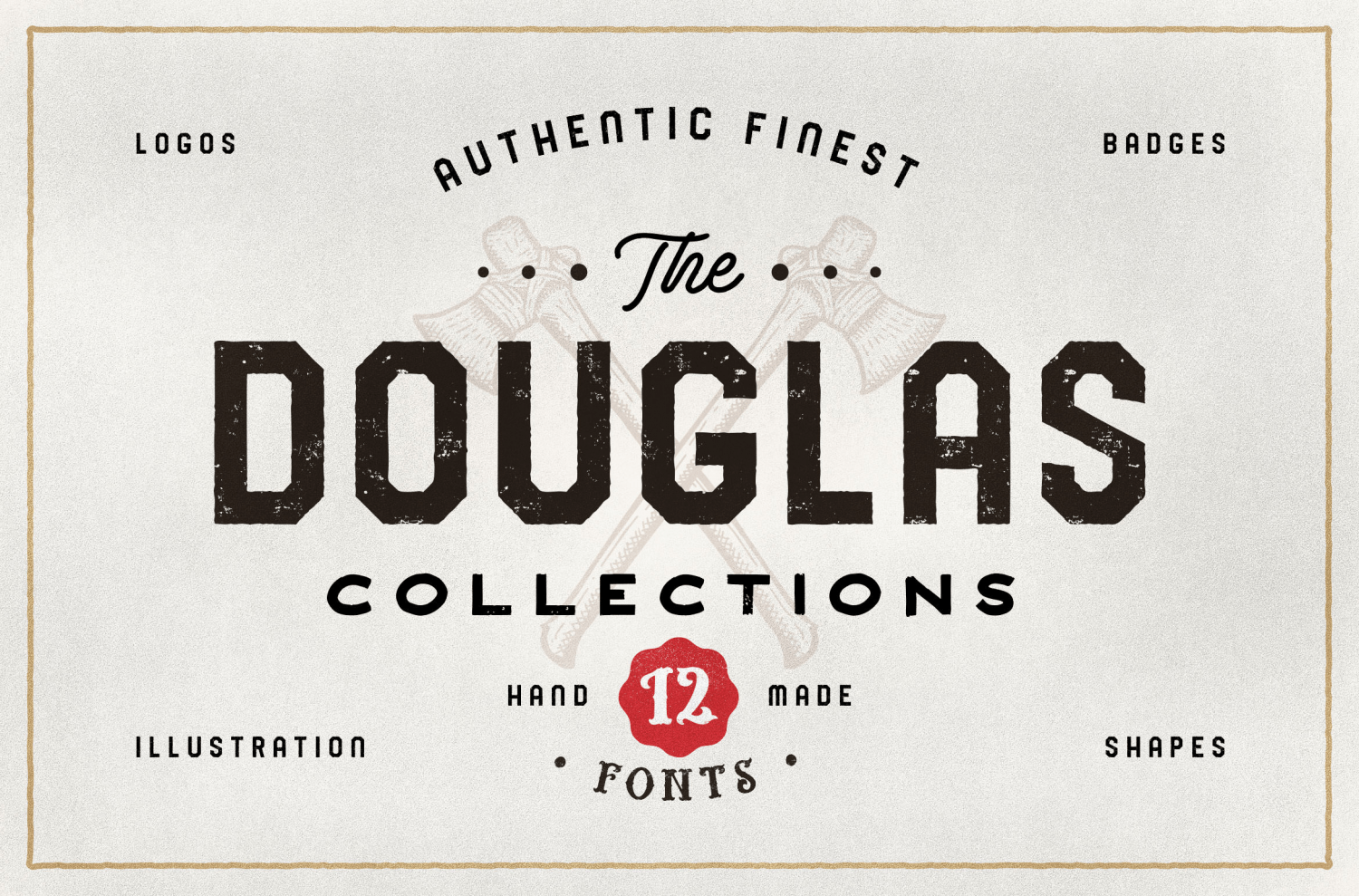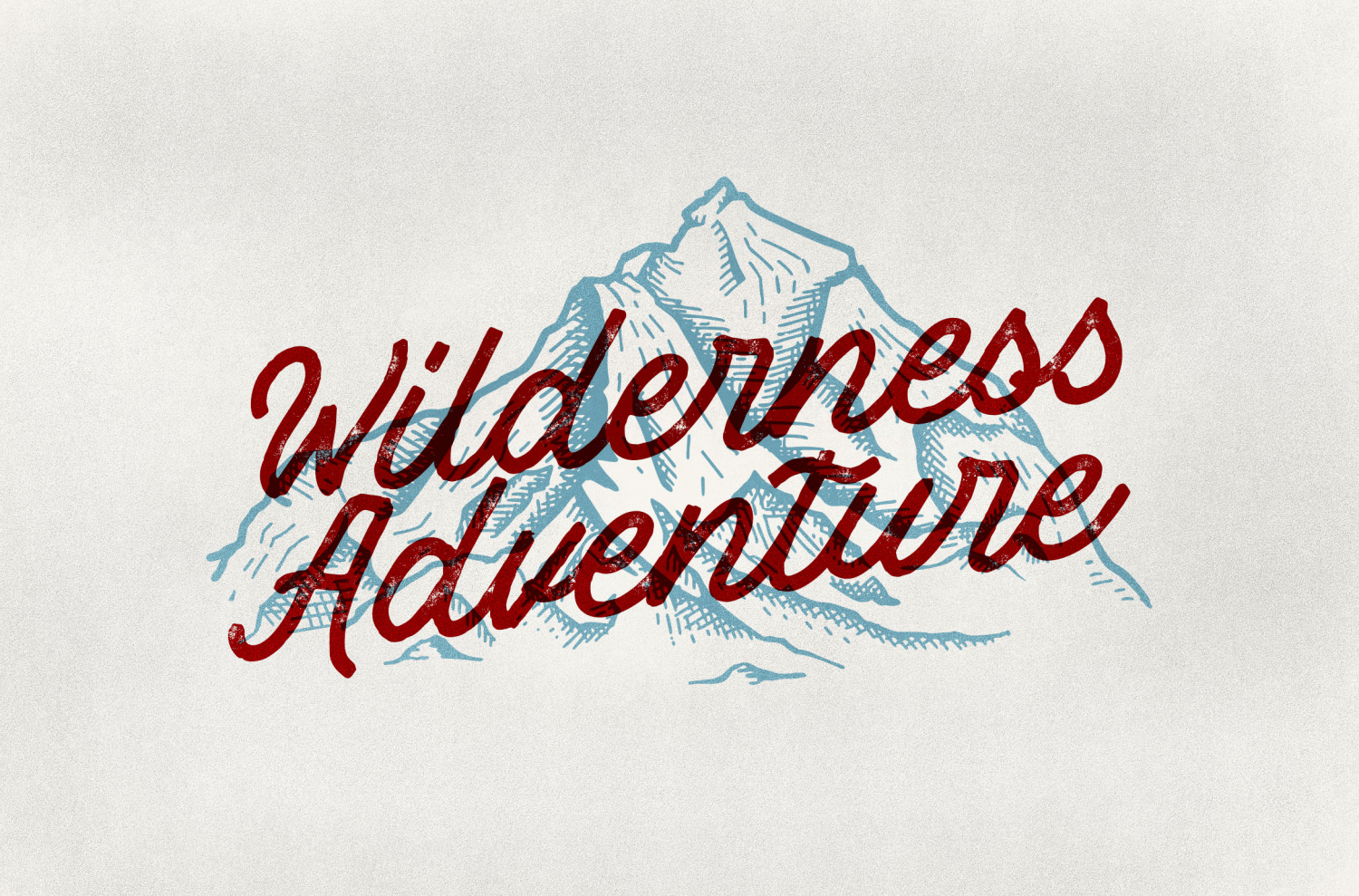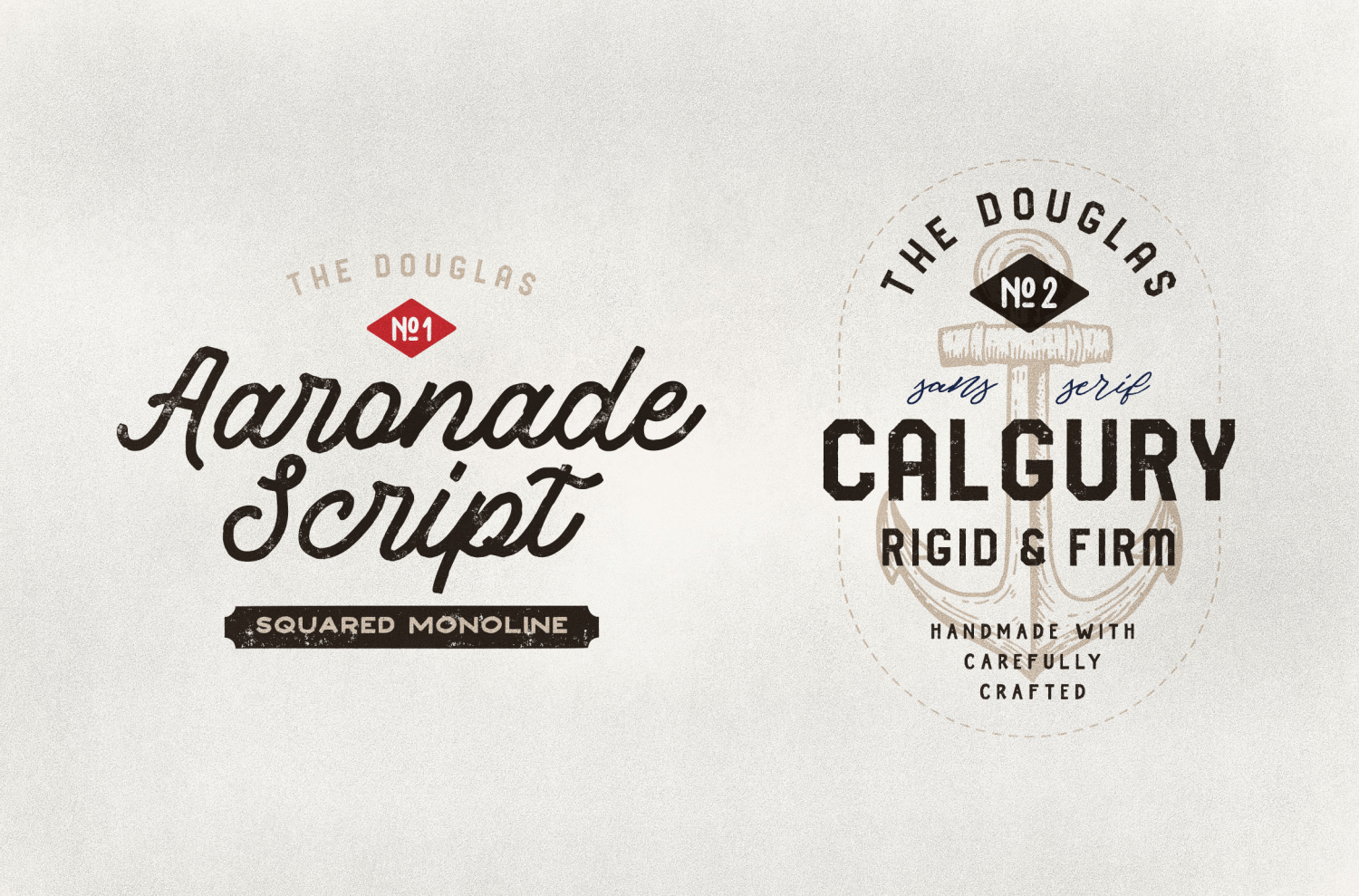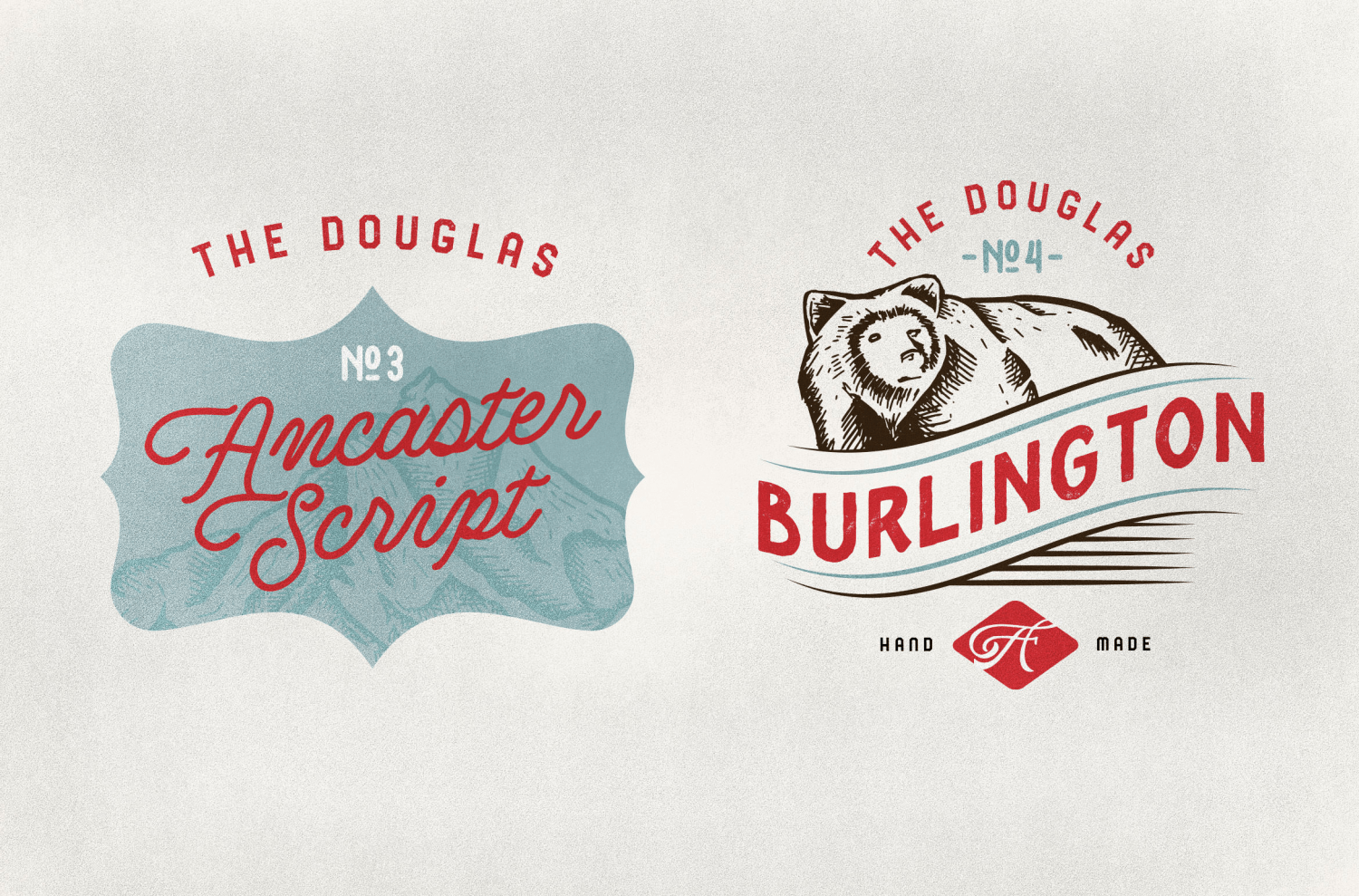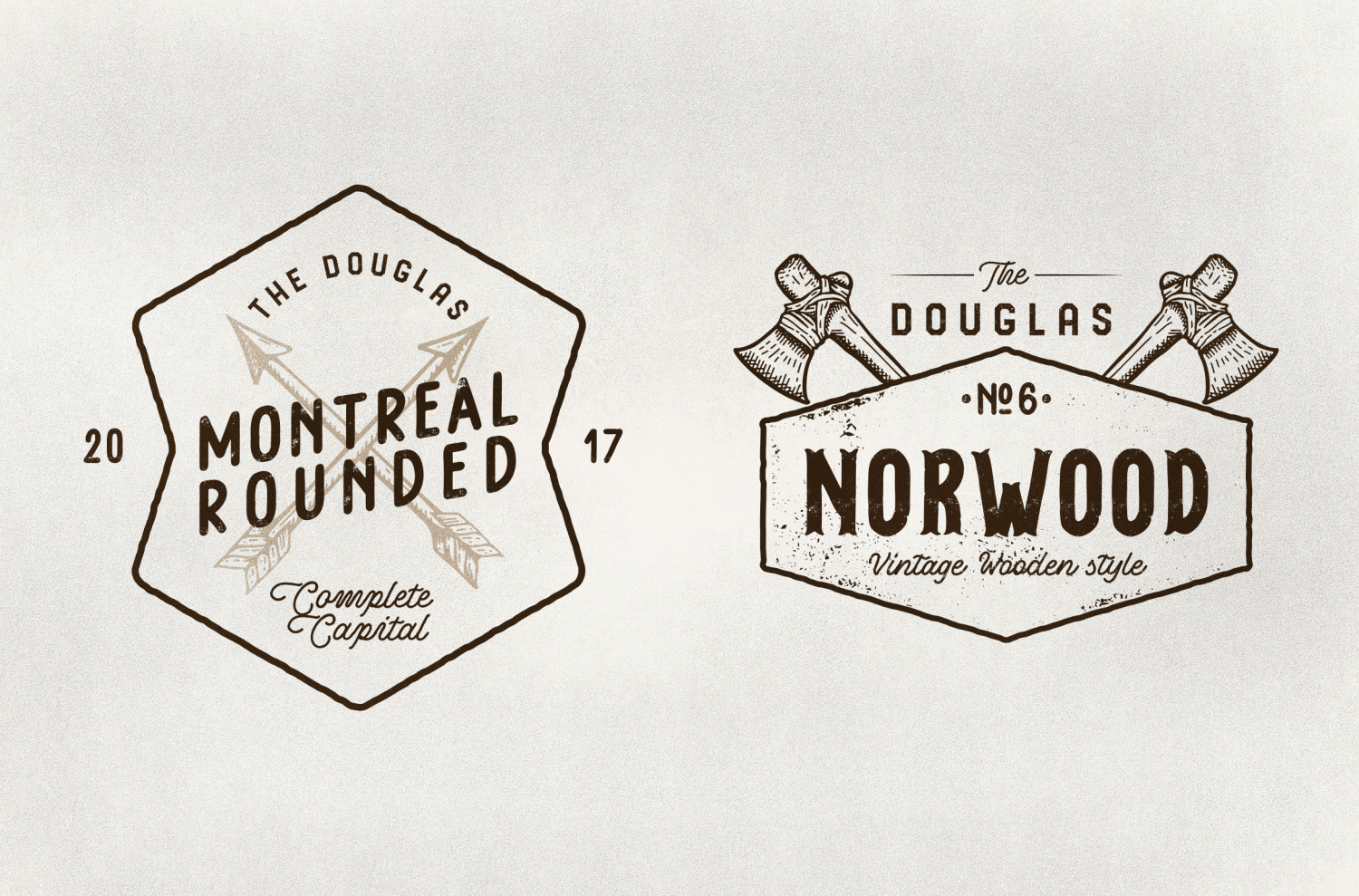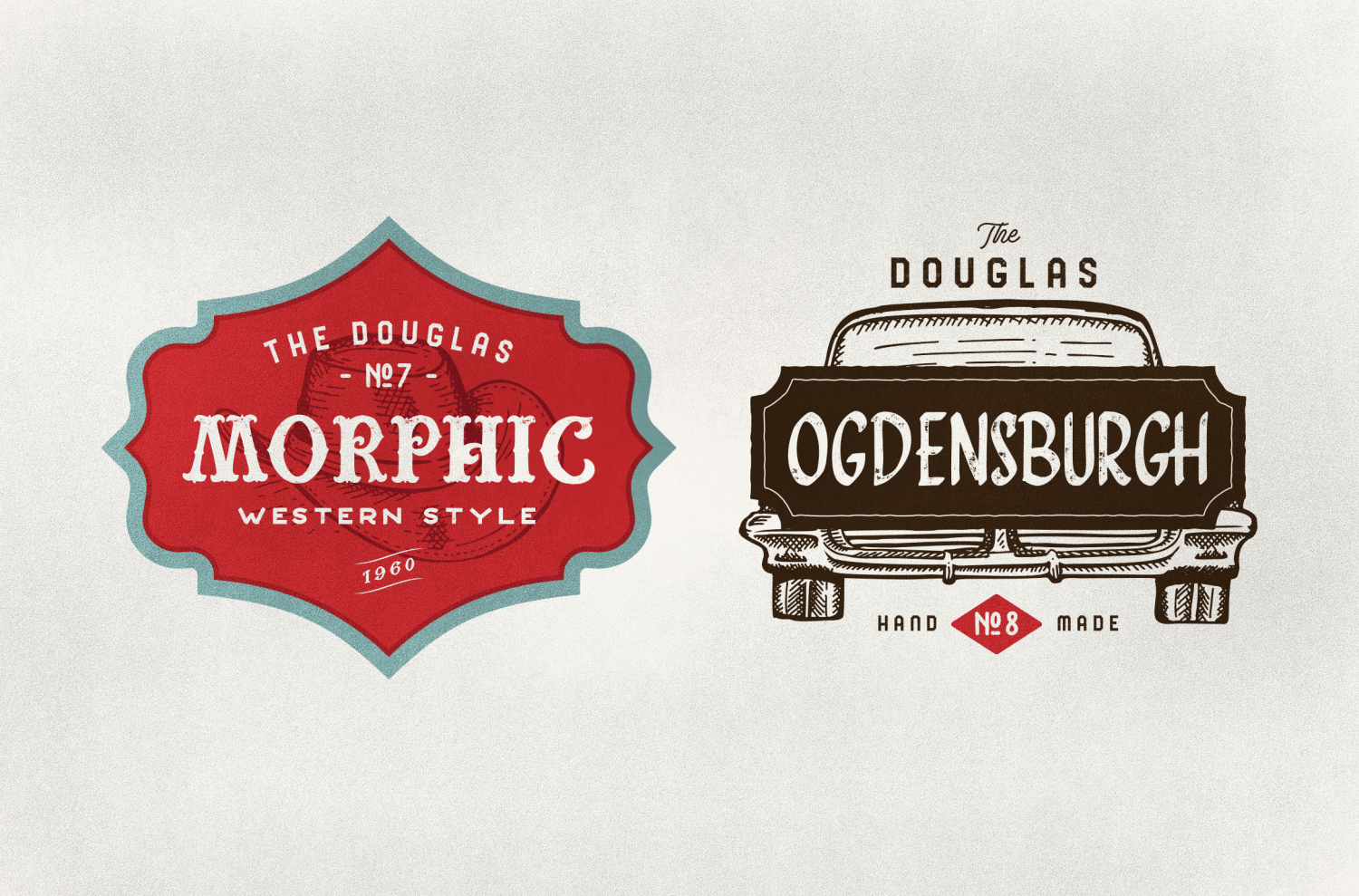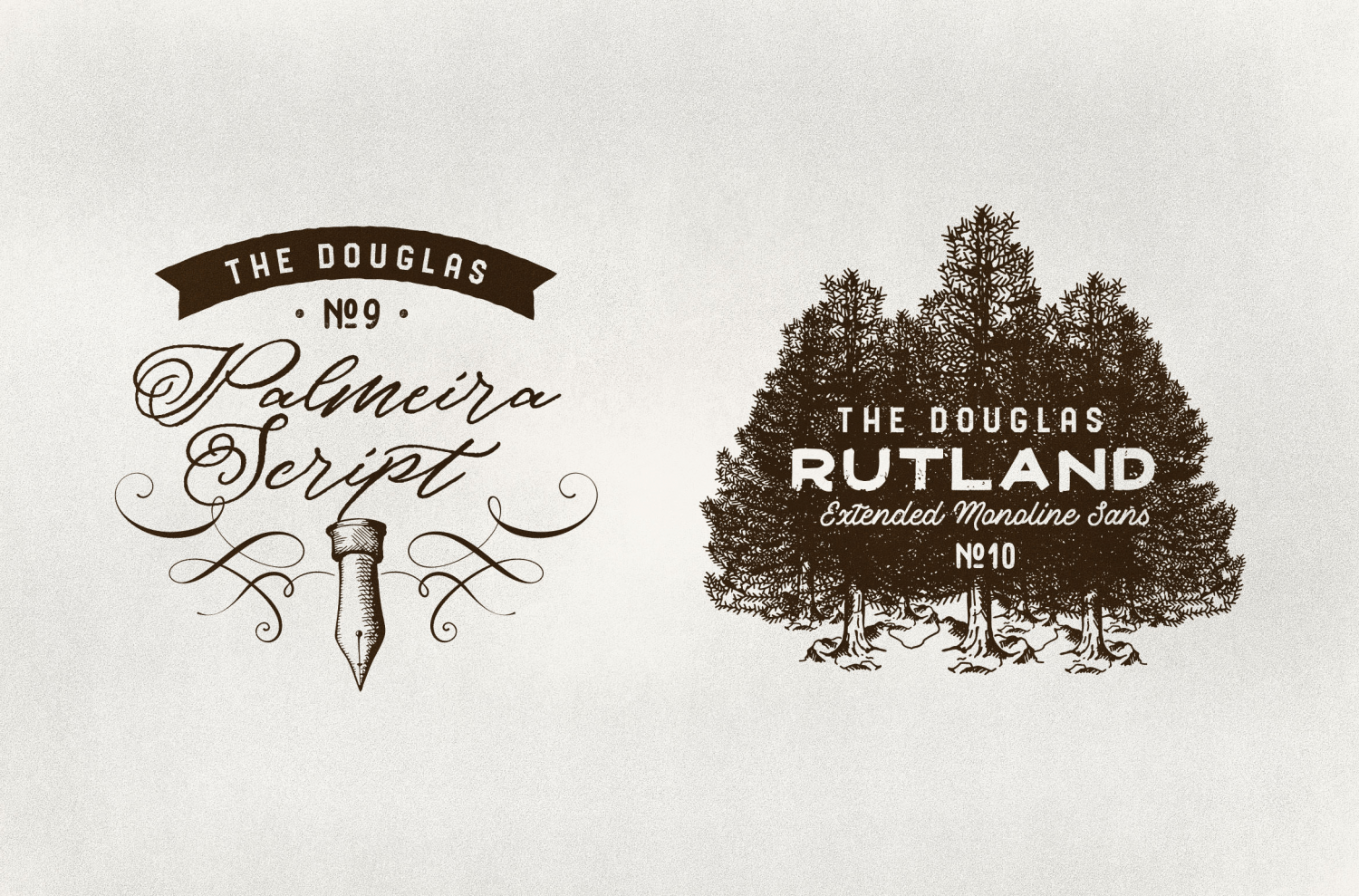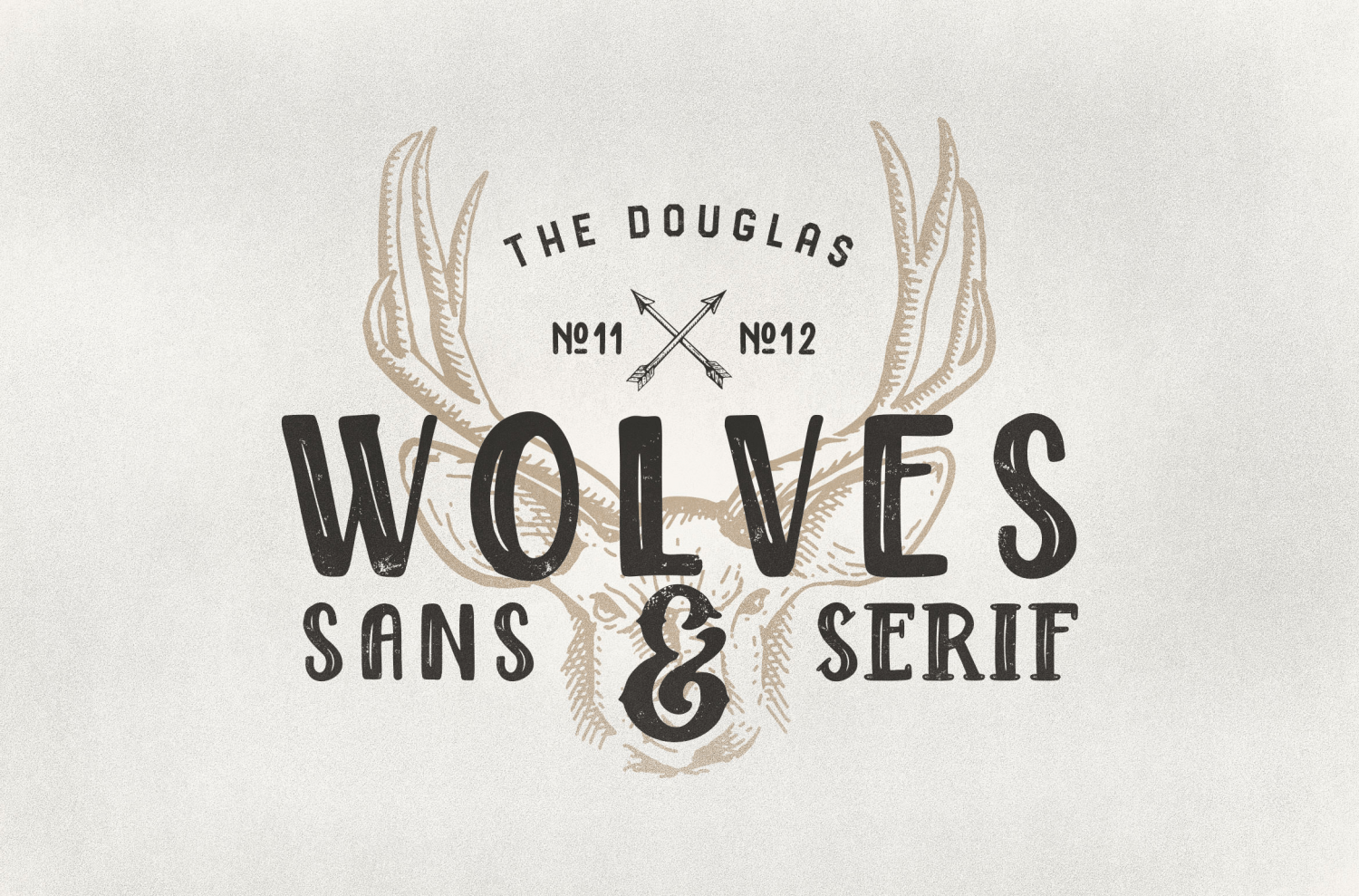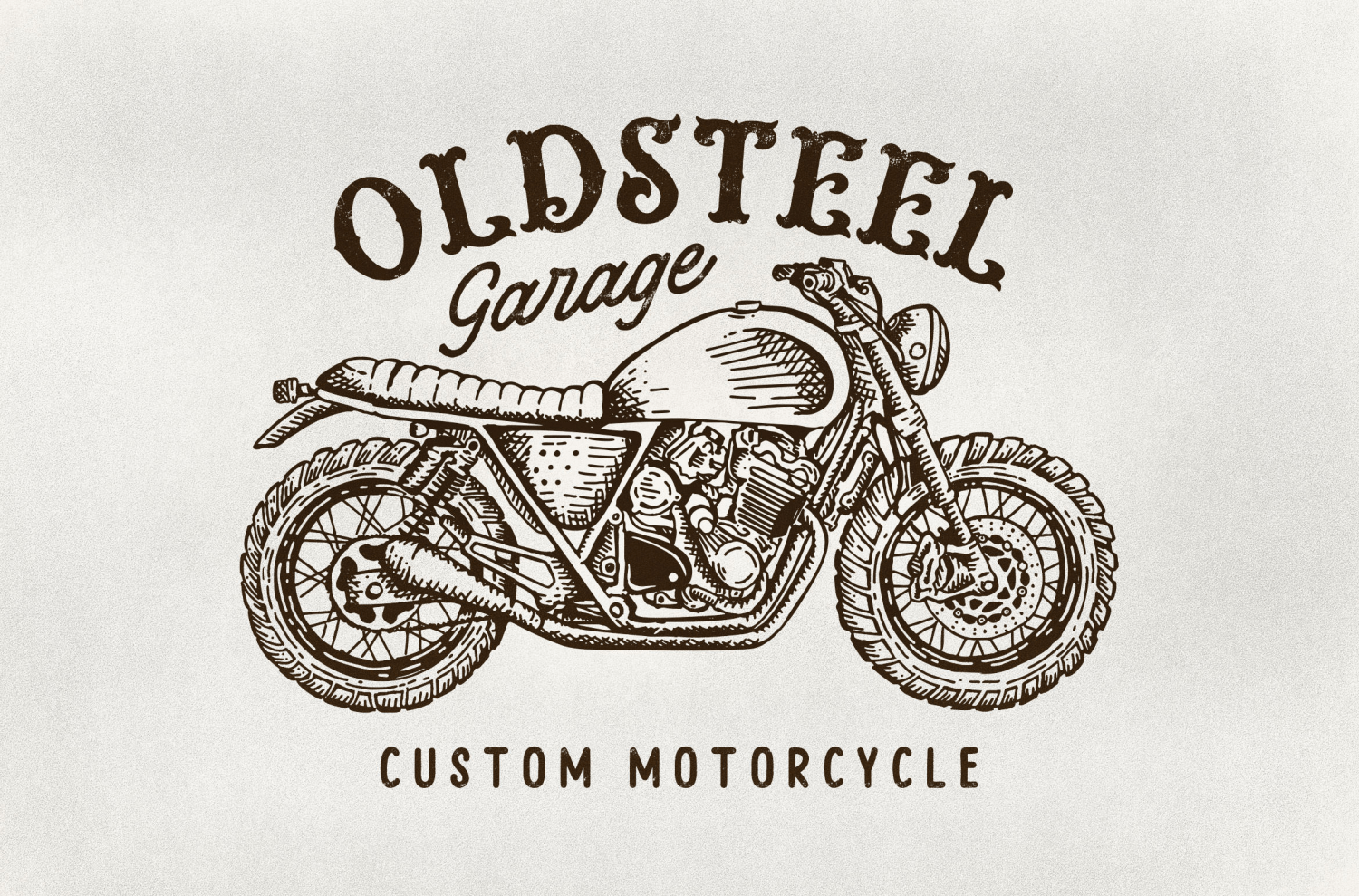
Douglas
Font Family by AF Studio
Comes with 12 Handmade font files with rough effect, 25 detailed Illustration, 24 editable text Logos and 36 shape badges (72 if counting with Line version of badges).
I've never been easier to create the vintage Display image of the product except this one. You can mix and match the font you want to use, the illustration or use the badges on your design. This pack is great to use on two tone color or with colored design like for logos, posters, advertising, book cover, and other artwork.
12 Font Files You Get:
- The Douglas Aaronade Script
- The Douglas Ancaster Script
- The Douglas Burlington
- The Douglas Calgury
- The Douglas Montreal Rounded
- The Douglas Morphic 60s
- The Douglas Norwood Old
- The Douglas Ogdensburgh
- The Douglas Palmeira
- The Douglas Rutland Extended
- The Douglas Wolves Sans
- The Douglas Wolves Serif
- 25 Detailed Illustration
- 24 Logos with Editable Text
- 36 Badges